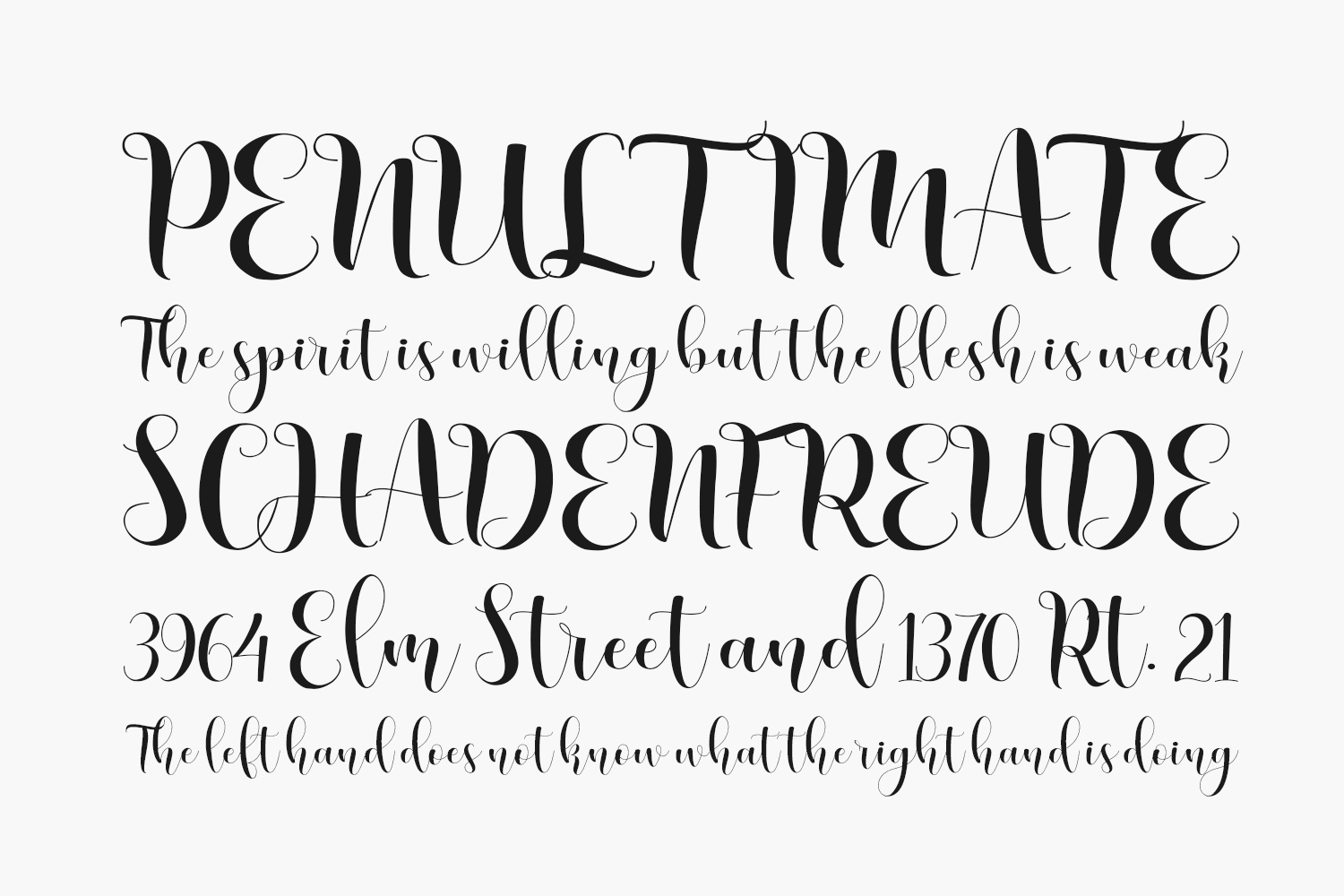
Honney Free Font is a unique, cute, and Lovely Script. Its hand look style makes perfect to use for the invitation, stationery, wedding designs, social media posts, advertisements, product packaging, product designs, label, photography, watermark, special events, logos, signatures, quotes, badges, labels, packaging design, blog headlines or simply use it in your next design project. Please purchase the full version for commercial use.